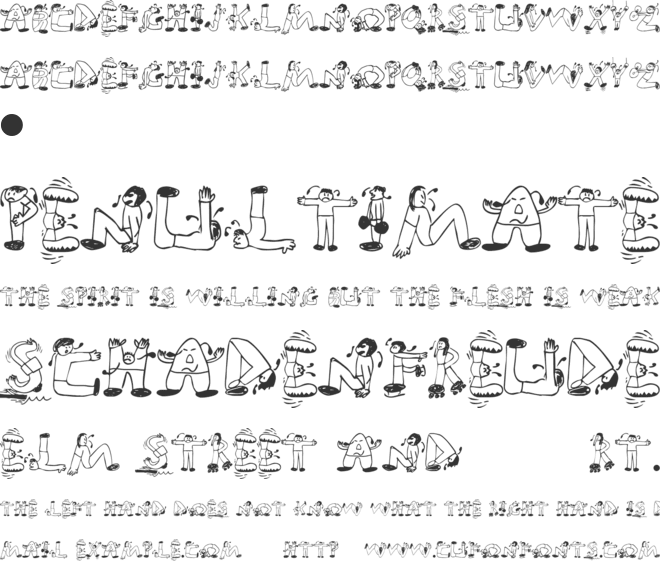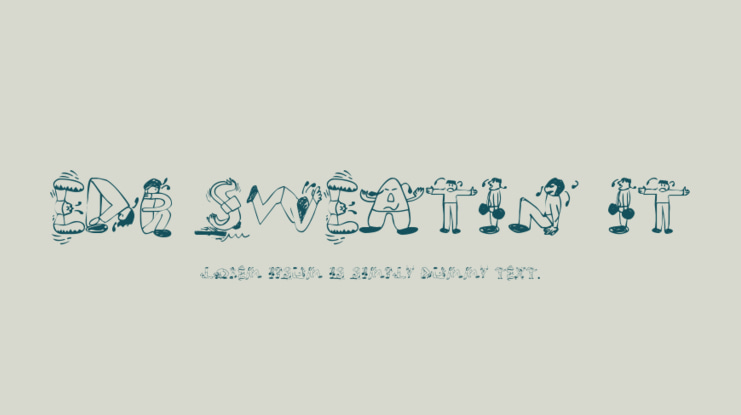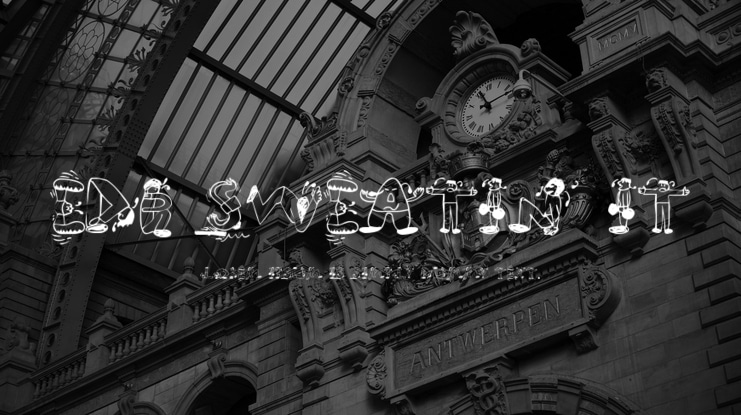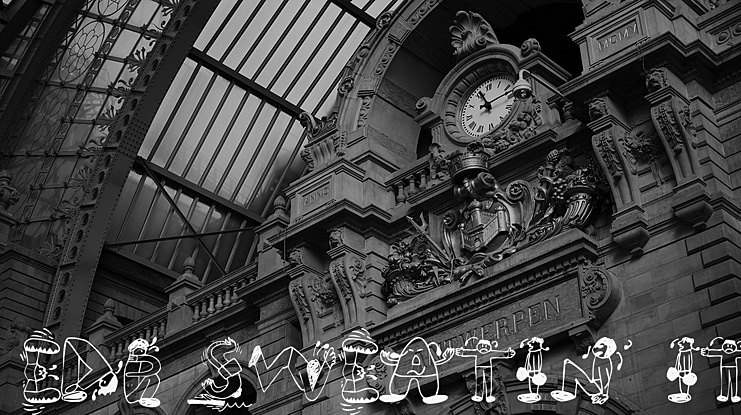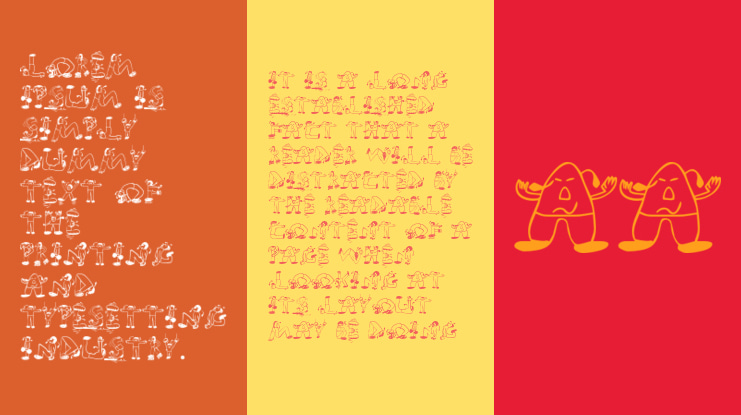
EDB Sweatin' It Font
This version includes upper and lowercase letters, but no letters or numerals. I also included some UA Type dingbats (just to amuse myself, and so you don't get those annoying boxes when you type something that isn't in the font).
Edward Buri sent me an e-mail saying he had doodled some letters, and could I make them into an alphabet? He sent me lots of pages of ideas, and I told him that this one would work out great, if he could complete it. He did, and I fonted it.
I think it turned out well, although it's more of a dingbat than letters. That's fine with me, though. You can use it for drop caps and stuff.